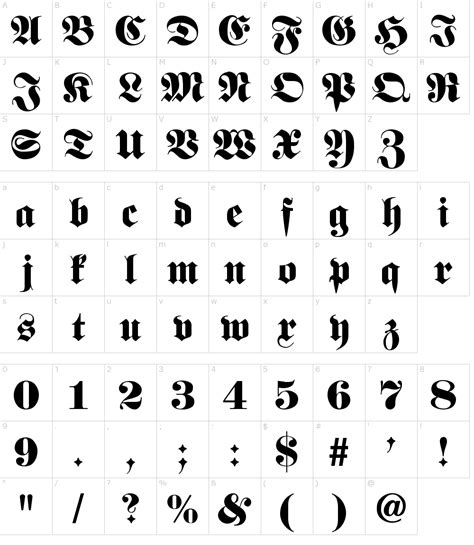
Fette Fraktur Fonts: A Deep Dive
Hey guys! Today, we’re diving deep into the world of Fette Fraktur fonts . You know, those really bold, almost gothic-looking typefaces that really make a statement? We’re going to explore what they are, where they came from, and why they still have a place in design today. So, buckle up, because we’re about to get our font nerd on!
What Exactly is Fette Fraktur?
Alright, let’s break it down. Fette Fraktur fonts are a specific style of Blackletter type. Now, Blackletter itself is a broad category of scripts that became popular in Western Europe from the 12th century onwards. Think of manuscripts from that era – that’s often Blackletter. But Fraktur, and specifically Fette Fraktur, is a more refined, more angular version of Blackletter that really took off in Germany.
The term “Fette” in German literally means “fat” or “bold.” So, Fette Fraktur fonts are essentially bold Fraktur fonts . They are characterized by their heavy, thick strokes, sharp angles, and distinctive serifs. Unlike some other Blackletter styles that can be more rounded, Fette Fraktur is all about that dramatic contrast and powerful presence . They often have a very strong vertical emphasis, making them stand out dramatically.
Historically, Fraktur was developed in the early 16th century byscribes who wanted to create a more legible and efficient script compared to earlier, more complex Blackletter forms like Textualis. It was heavily influenced by Renaissance humanism’s call for clarity and order. However, Fette Fraktur took this a step further, embracing a much heavier, more decorative feel. It became incredibly popular in Germany for printing, especially for official documents, religious texts, and even propaganda. Its visual impact was undeniable, conveying a sense of authority, tradition, and national identity.
When you look at a Fette Fraktur font , you’ll notice a few key things. The boldness is the most obvious. The strokes are thick and substantial, giving the typeface a weighty feel. Then there are the sharp, angular breaks in the strokes, particularly noticeable in the curves of letters like ‘o’ and ‘b’. These breaks are a hallmark of Fraktur. Finally, you’ll see distinctive, often triangular or wedge-shaped serifs that add to the overall strong and somewhat ornate appearance. It’s this combination that gives Fette Fraktur its unique and instantly recognizable look. It’s not just a font; it’s a whole aesthetic that speaks volumes about history and tradition.
The Historical Significance of Fette Fraktur
The story of Fette Fraktur fonts is deeply intertwined with German history and culture. This typeface style emerged in the 16th century and rose to prominence in the 18th and 19th centuries, becoming a symbol of German national identity. It was widely used in official publications, books, and newspapers, projecting an image of strength, seriousness, and cultural heritage. German printers and typographers embraced Fraktur, refining it into various forms, with Fette Fraktur being one of the most impactful due to its sheer visual weight and commanding presence. It was seen as a distinctly German script, differentiating it from the more Latin-influenced typefaces prevalent elsewhere in Europe.
During the Nazi era, Fraktur, and particularly Fette Fraktur, was heavily promoted as the official German script. It was associated with national pride and Aryan supremacy, appearing on countless propaganda posters, official documents, and publications. This association, however, cast a long shadow over the typeface, leading to its widespread denouncement and eventual abandonment by the Nazi regime itself in 1941 in favor of Antiqua (Roman) typefaces, which were deemed more international. This complex and often dark historical context means that Fette Fraktur fonts carry a heavy symbolic weight. For many, they evoke a sense of tradition and historical gravitas, while for others, they are unfortunately tainted by their association with Nazism. Understanding this duality is crucial when considering its use today.
Despite this controversial past, the aesthetic qualities of Fette Fraktur have endured. Its boldness , distinctive angularity , and powerful presence are qualities that designers and artists continue to find appealing for specific applications. It’s a typeface that demands attention and conveys a sense of historical depth. Its use in modern design often requires careful consideration, balancing its striking visual impact with an awareness of its historical associations. The goal is often to leverage its inherent strength and character without invoking negative connotations. It’s a delicate dance, but when done right, the results can be incredibly impactful and historically resonant, offering a unique visual language that sets a design apart. The sheer visual drama it provides is something few other typefaces can replicate, making it a compelling choice for specific branding or artistic endeavors.
Where to Find Fette Fraktur Fonts Today
So, you’re probably wondering, “Okay, this is cool, but where can I actually get some of these Fette Fraktur fonts ?” Don’t worry, guys, you’re in luck! While Fette Fraktur might not be as common as your everyday Arial or Times New Roman, there are definitely places you can find them, both free and paid. The digital age has made these historical gems accessible to a wider audience than ever before.
One of the best places to start your search is on major font marketplaces and repositories. Websites like MyFonts , Fontspring , and Linotype offer a vast selection of professional, high-quality Fette Fraktur fonts. These are often meticulously digitized versions of classic Fraktur designs, sometimes with added weights, styles, and improved character sets for better usability in digital environments. While these tend to be paid options, the quality and licensing are usually top-notch, making them a great investment for professional design projects. You’ll find variations from different foundries, each offering a slightly unique interpretation of the Fette Fraktur style.
If you’re on a tighter budget or just looking for something for a personal project, there are also plenty of free font resources out there. Websites like Google Fonts (though less likely to have direct Fette Fraktur, they might have inspired Blackletter styles), DaFont , and Font Squirrel are excellent places to explore. Be aware that free fonts can vary widely in quality. Some are excellent, well-crafted digital versions, while others might be more basic or lack the full character set you need. Always check the license agreement for free fonts to ensure they’re suitable for your intended use, especially if it’s for commercial projects. You might need to search using terms like “Fraktur,” “Blackletter,” or even specific historical font names if you know them.
Ultimately, Fette Fraktur fonts endure because they offer something unique: a potent blend of historical weight, dramatic visual presence, and distinct stylistic character. They are not everyday workhorses, but when used with purpose and awareness, they can elevate a design, adding layers of meaning and unforgettable visual flair. They remind us that typography is not just about conveying information, but also about evoking emotion, telling stories, and connecting with the rich tapestry of our past. Their enduring appeal lies in their ability to be both historically resonant and visually arresting, a rare combination in the world of fonts. They continue to fascinate and challenge designers to think creatively about form, history, and impact.